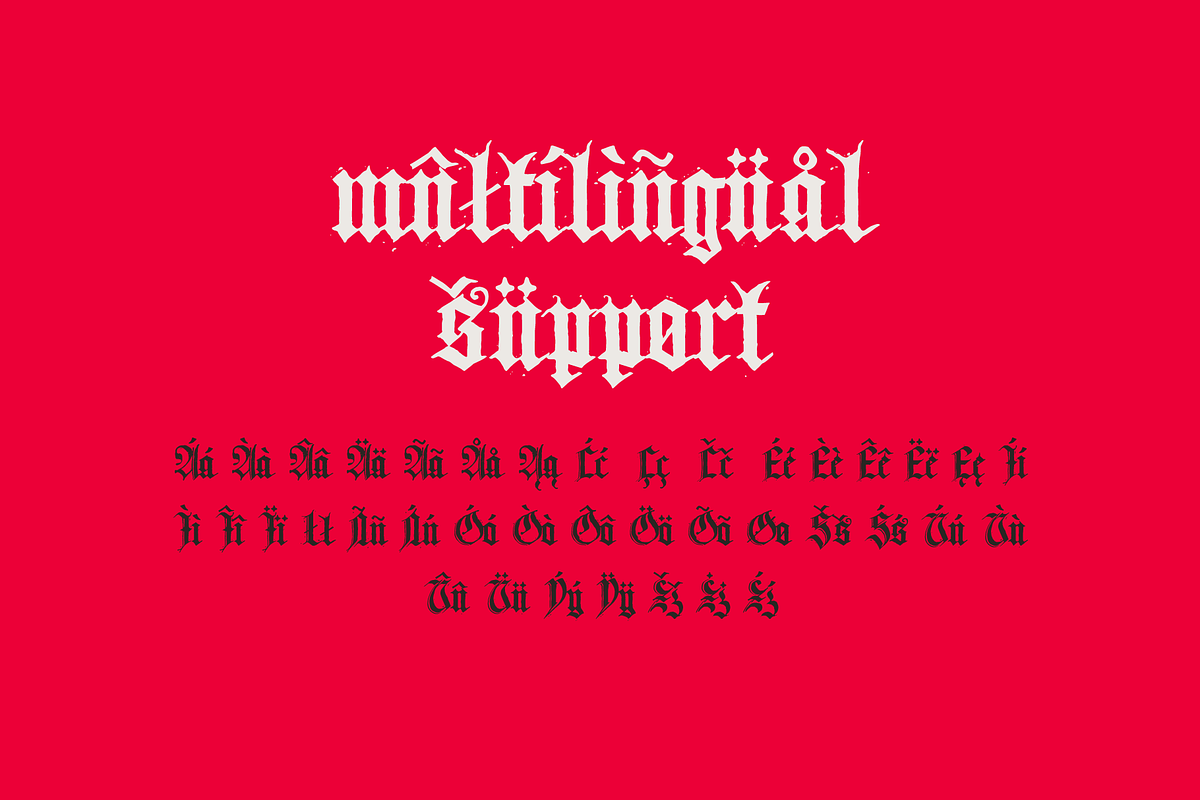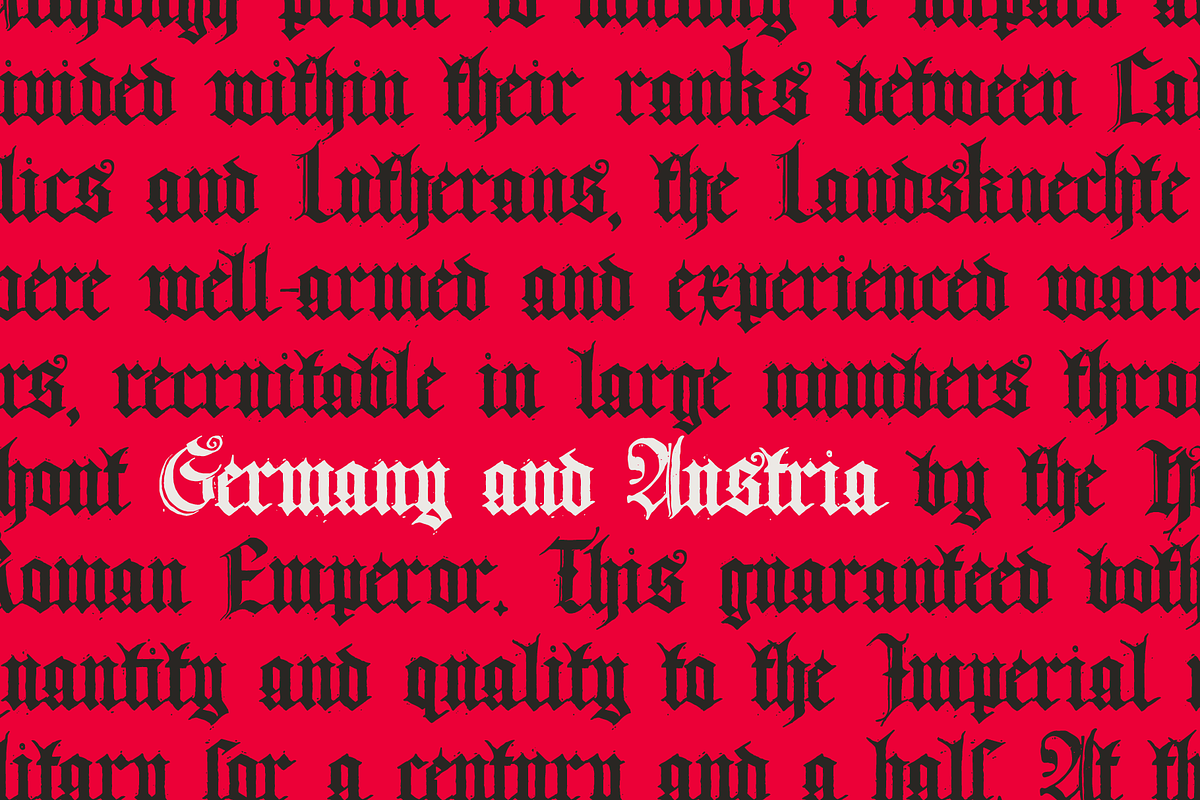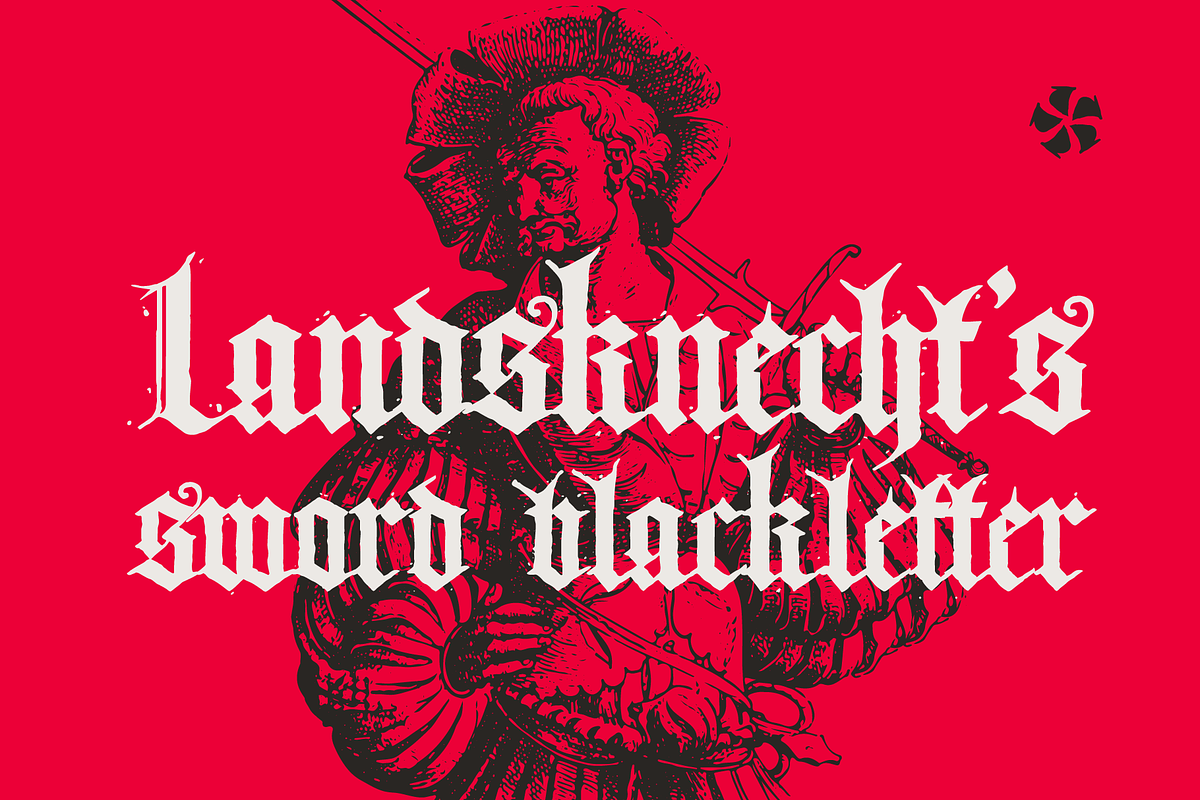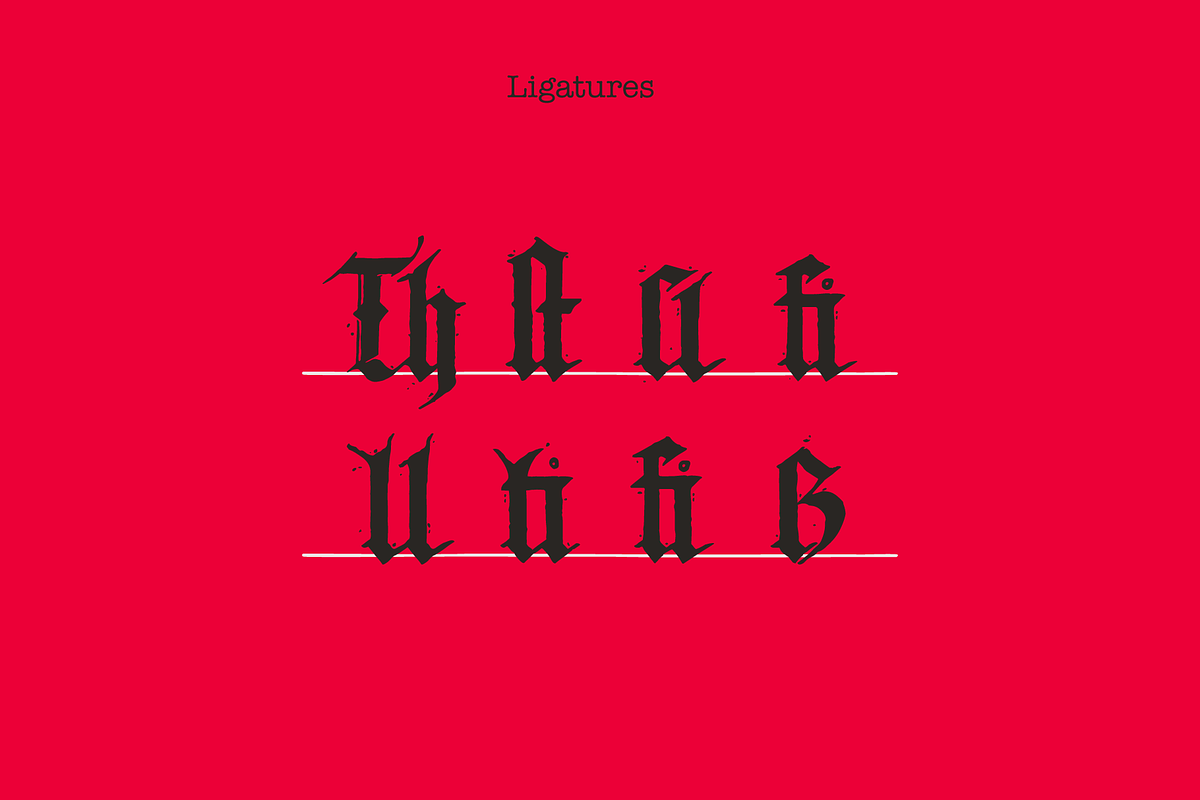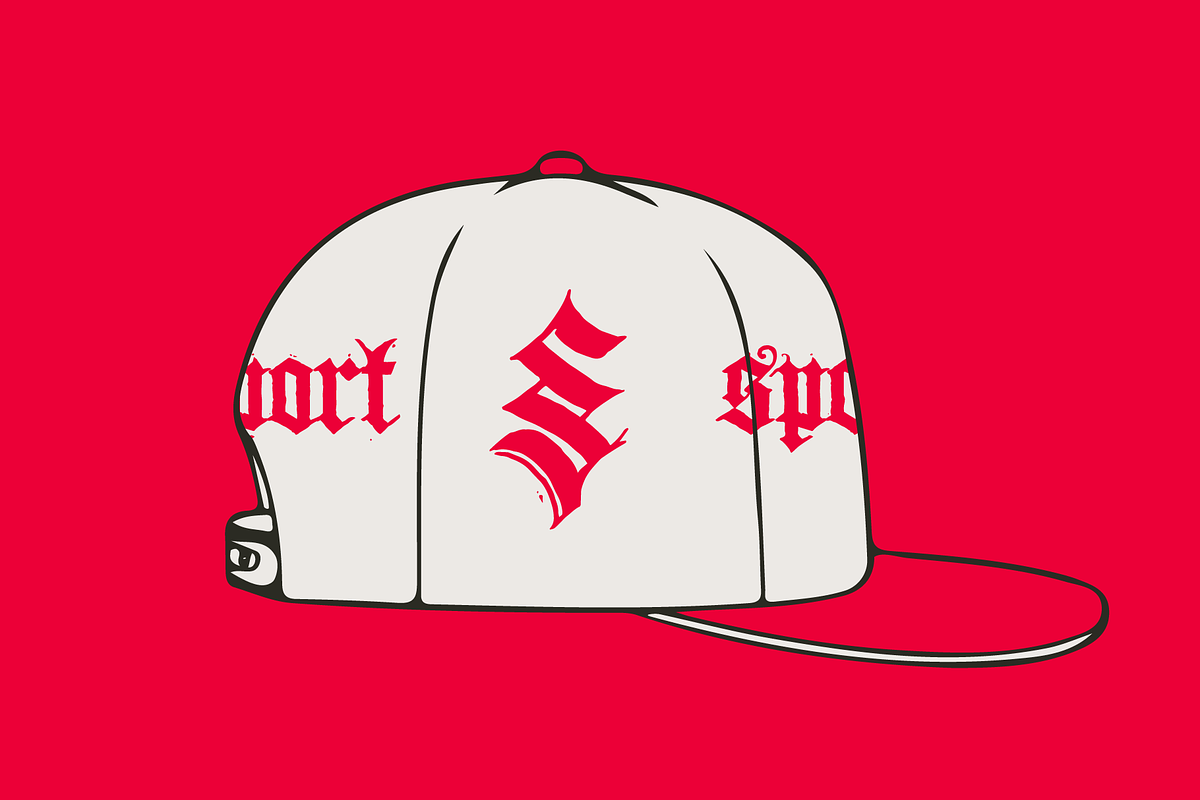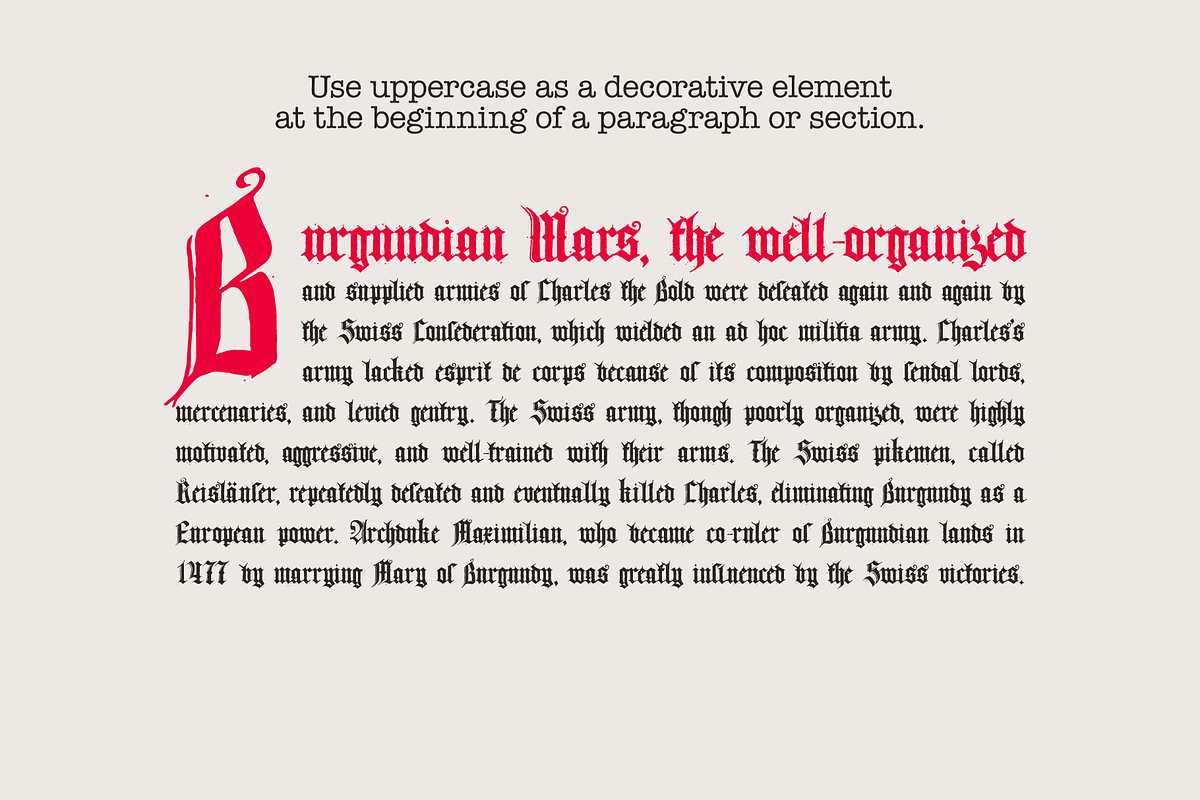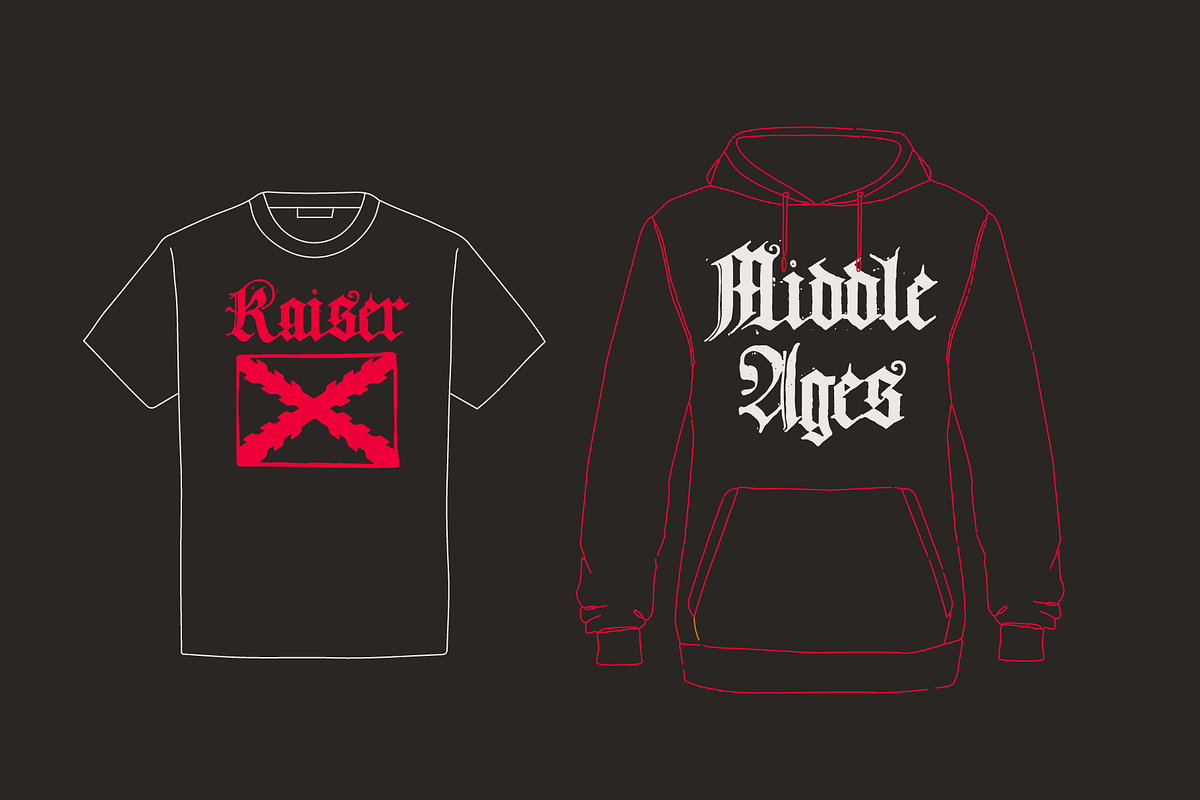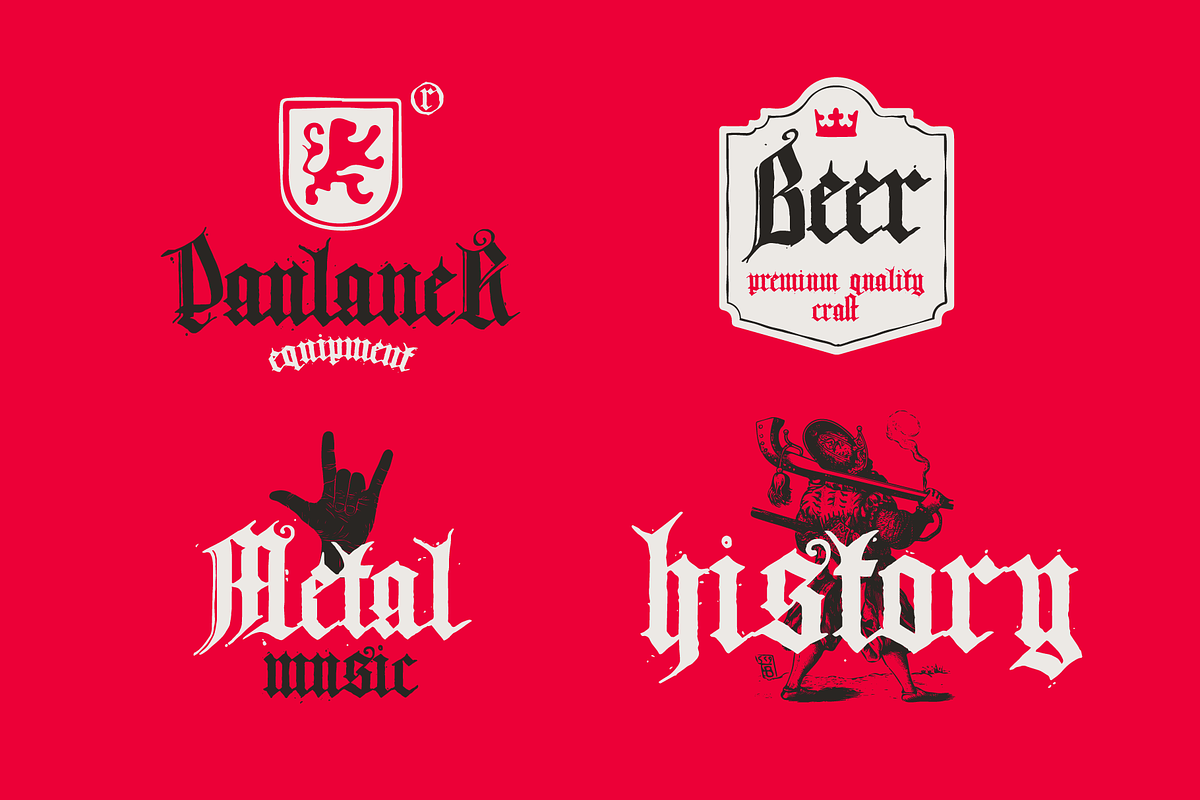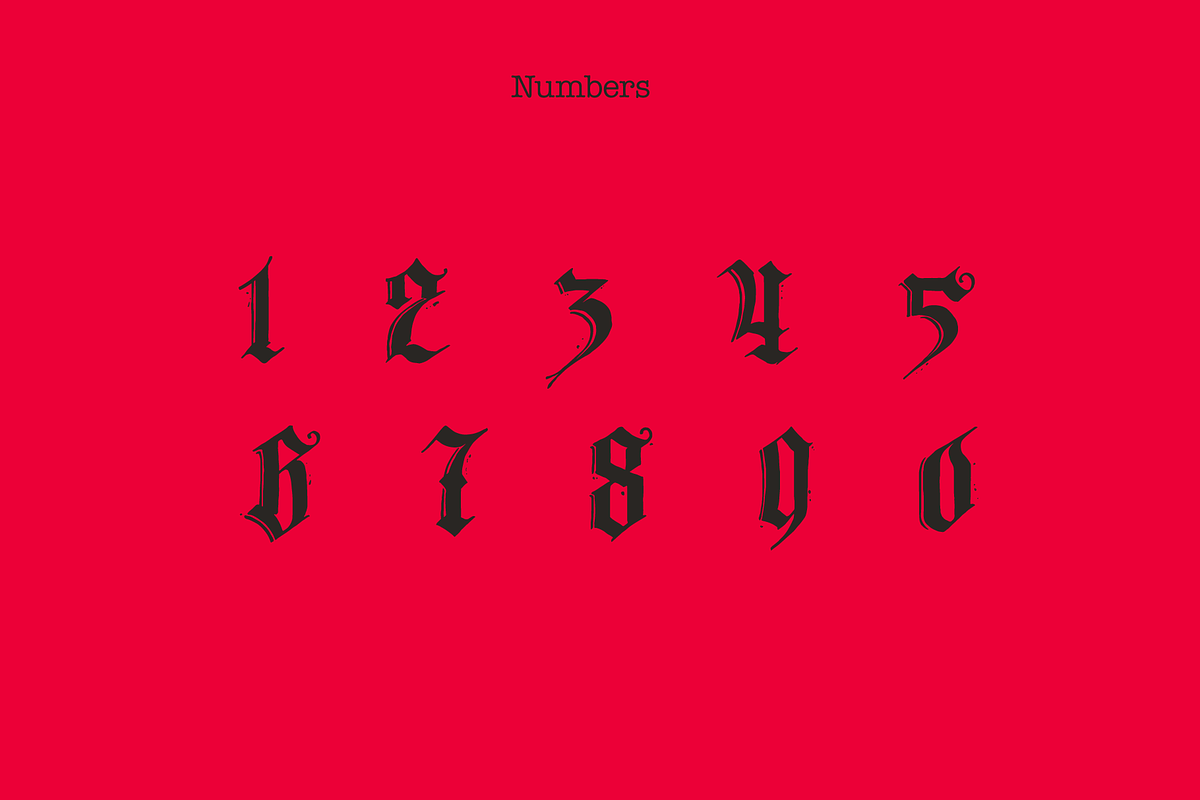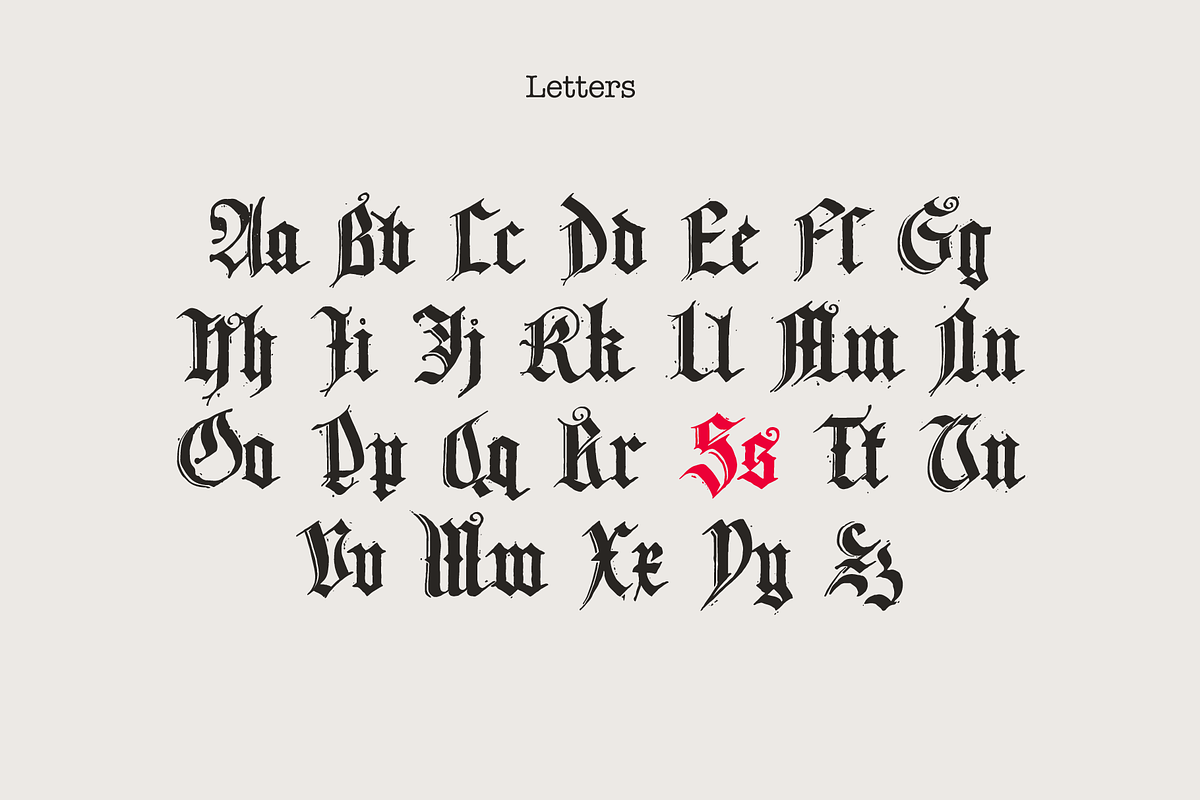
Landsknecht's Sword Blackletter font
Hello! I'm happy to introduce to you my new blackletter style calligraphy font. I took inspiration in the World History by Hartmann Schedel published in 1493, Nuremberg.
Do you need to design perfect alcohol labels, retro style logos, music album covers, circus posters, luxury packaging identity, etc.? If you want dark and strong medieval style concepts, please try it.